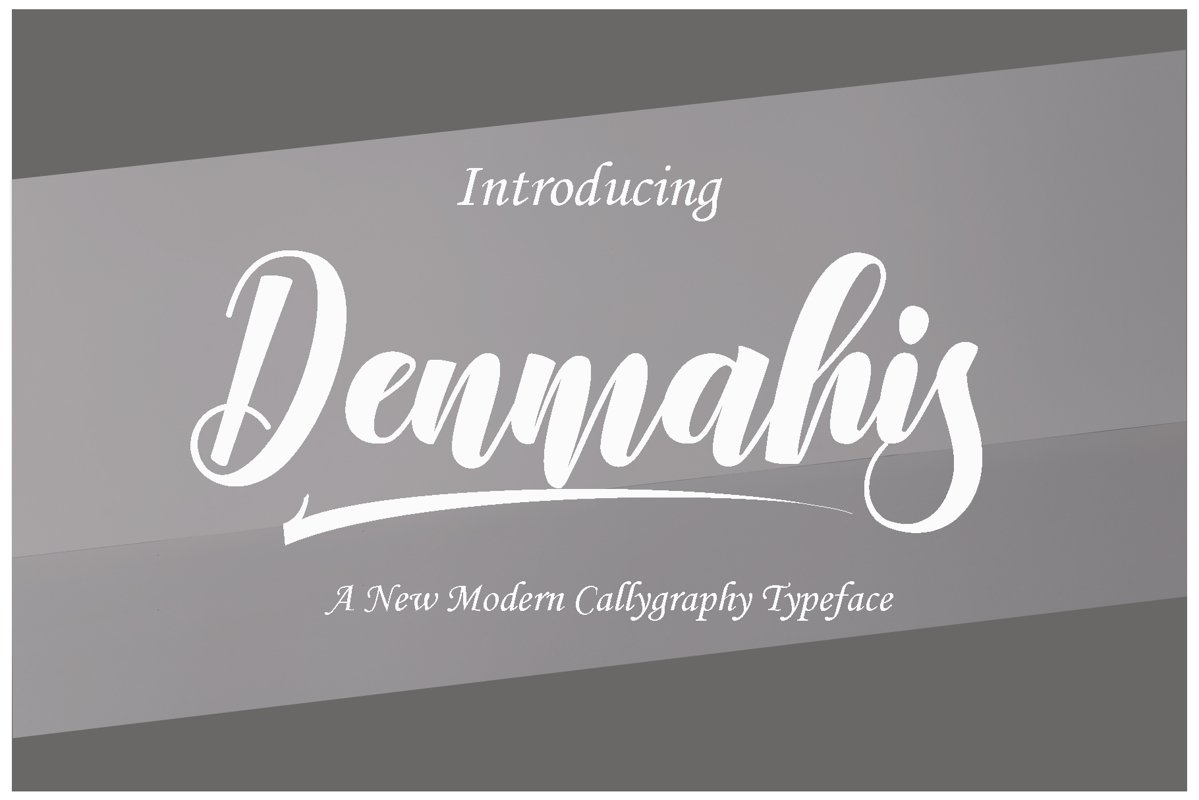
Denmahis
Denmahis Font Script Modern Calligraphy. This font was designed by handwriting, and it has a modern and unique forms of calligraphy, the writing style is very natural.
Denmahis Scripts are duo fonts of Memories line and Memories regular stylish calligraphy that have a varied base line, fine lines, classic and elegant touches. Can be used for various purposes. Such as title, signature, logo, wedding invitation, t-shirt, letterhead, nameplate, label, news, poster, badge etc.
Denmahis Script displays 405+ glyphs and 192 alternate characters. Includes initial letters and terminals, alternatives, ligatures and multiple language support.